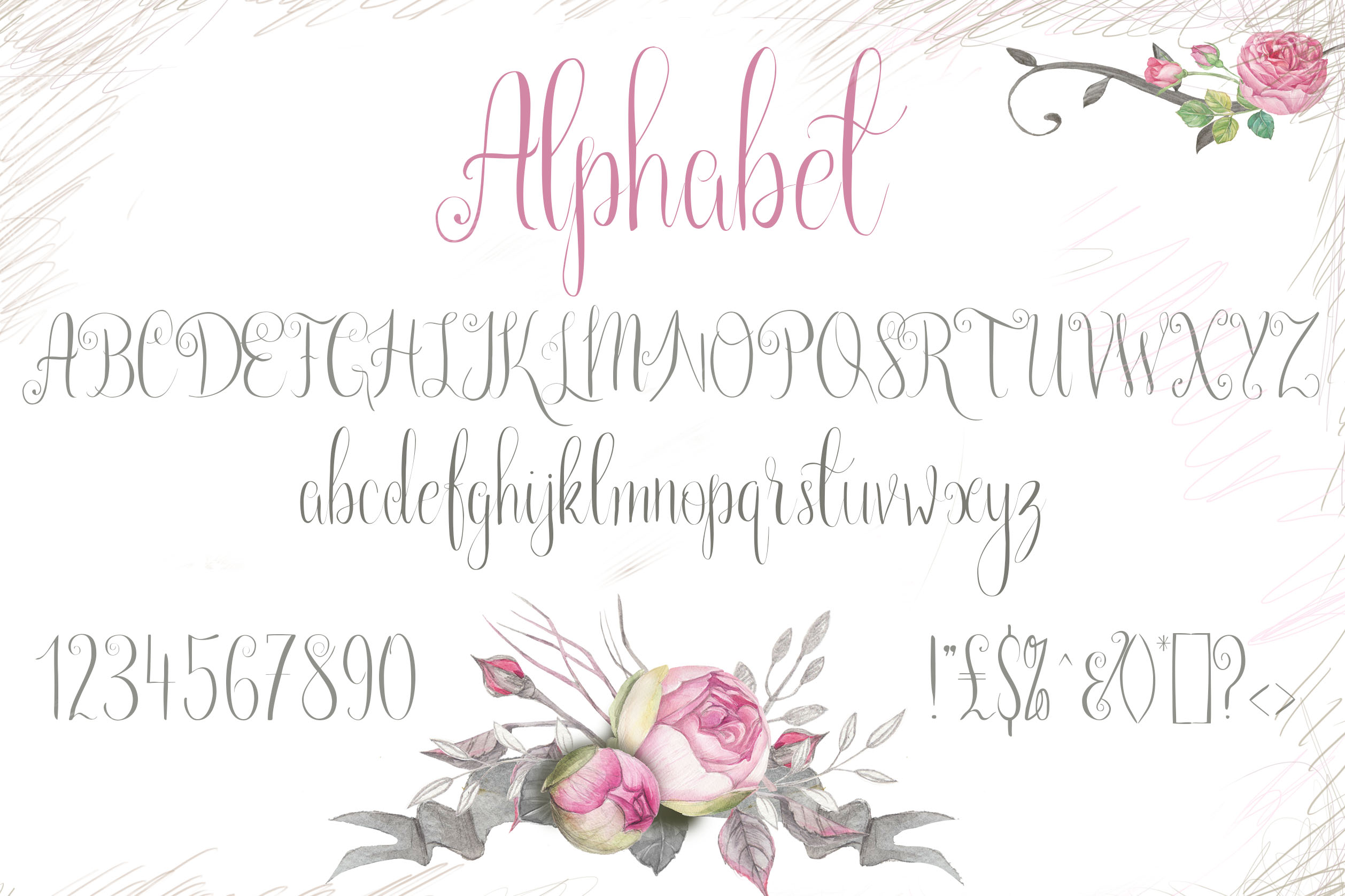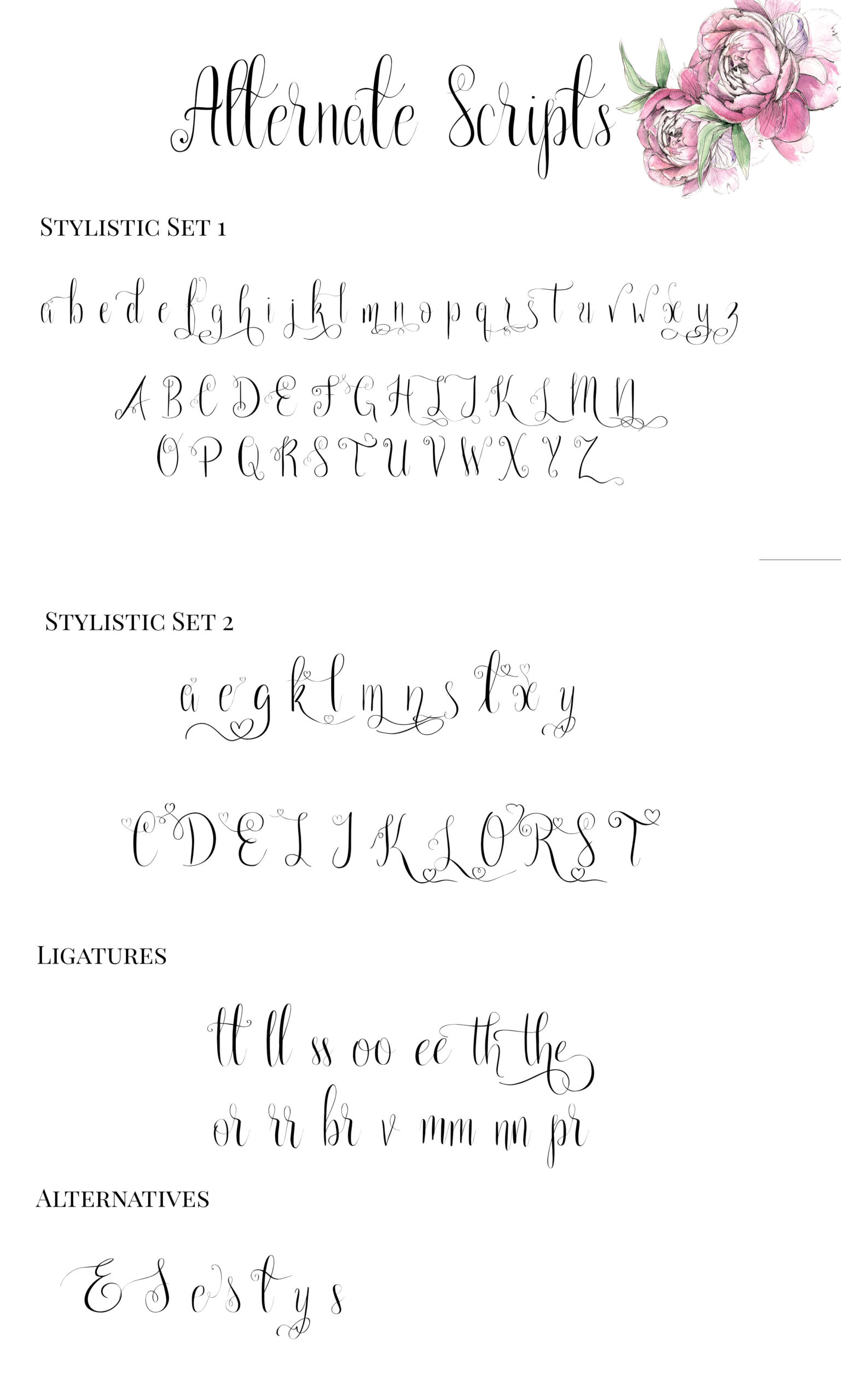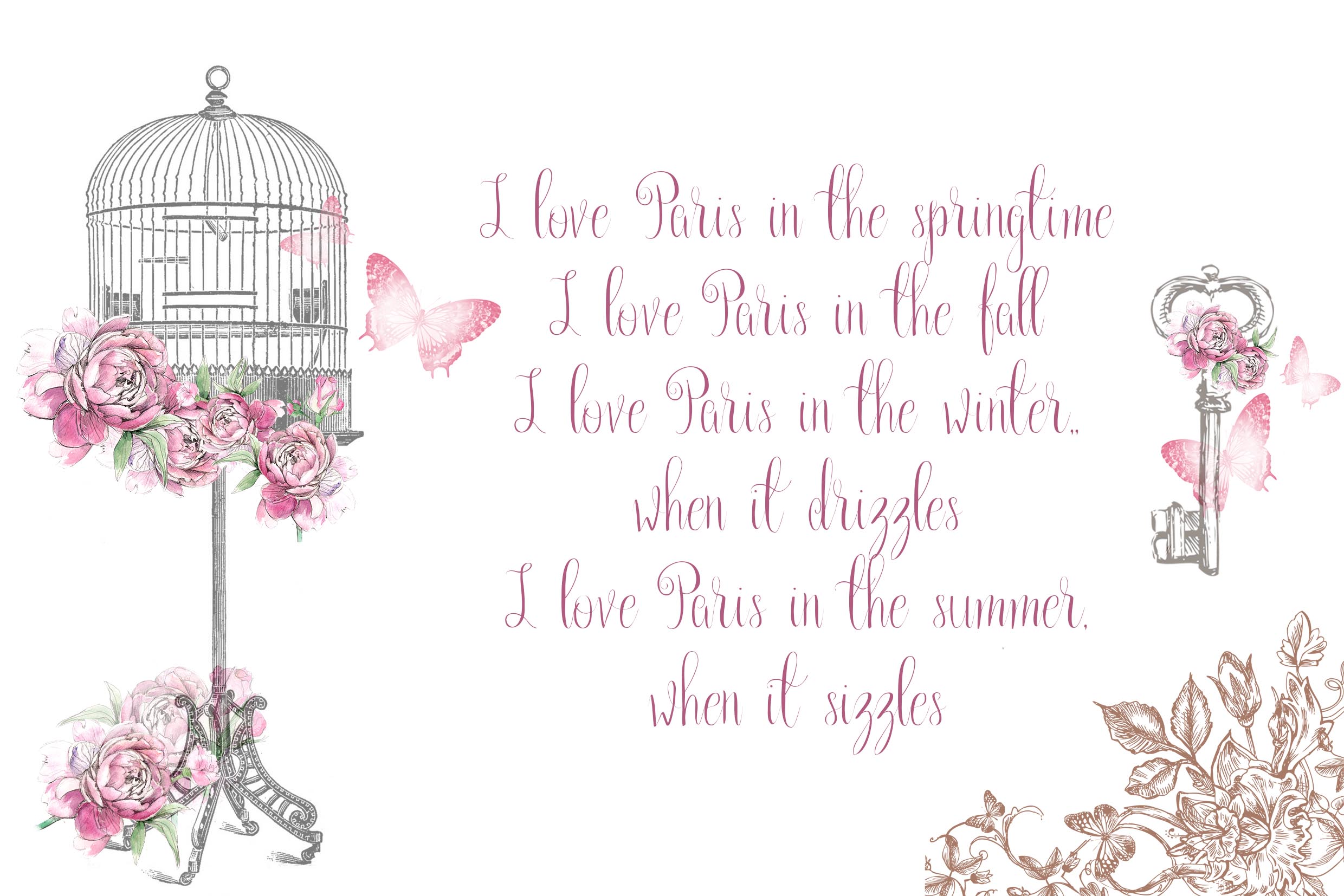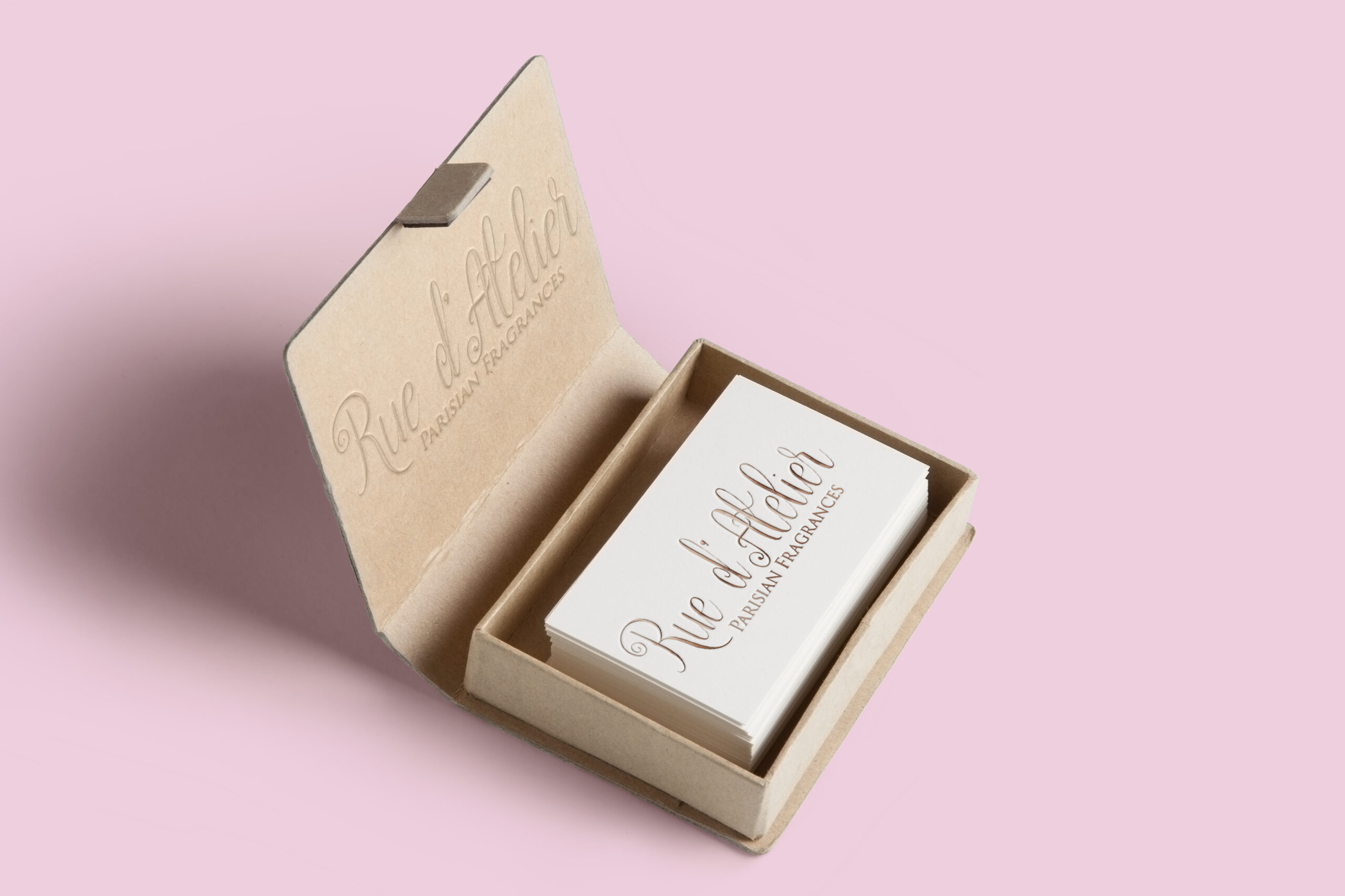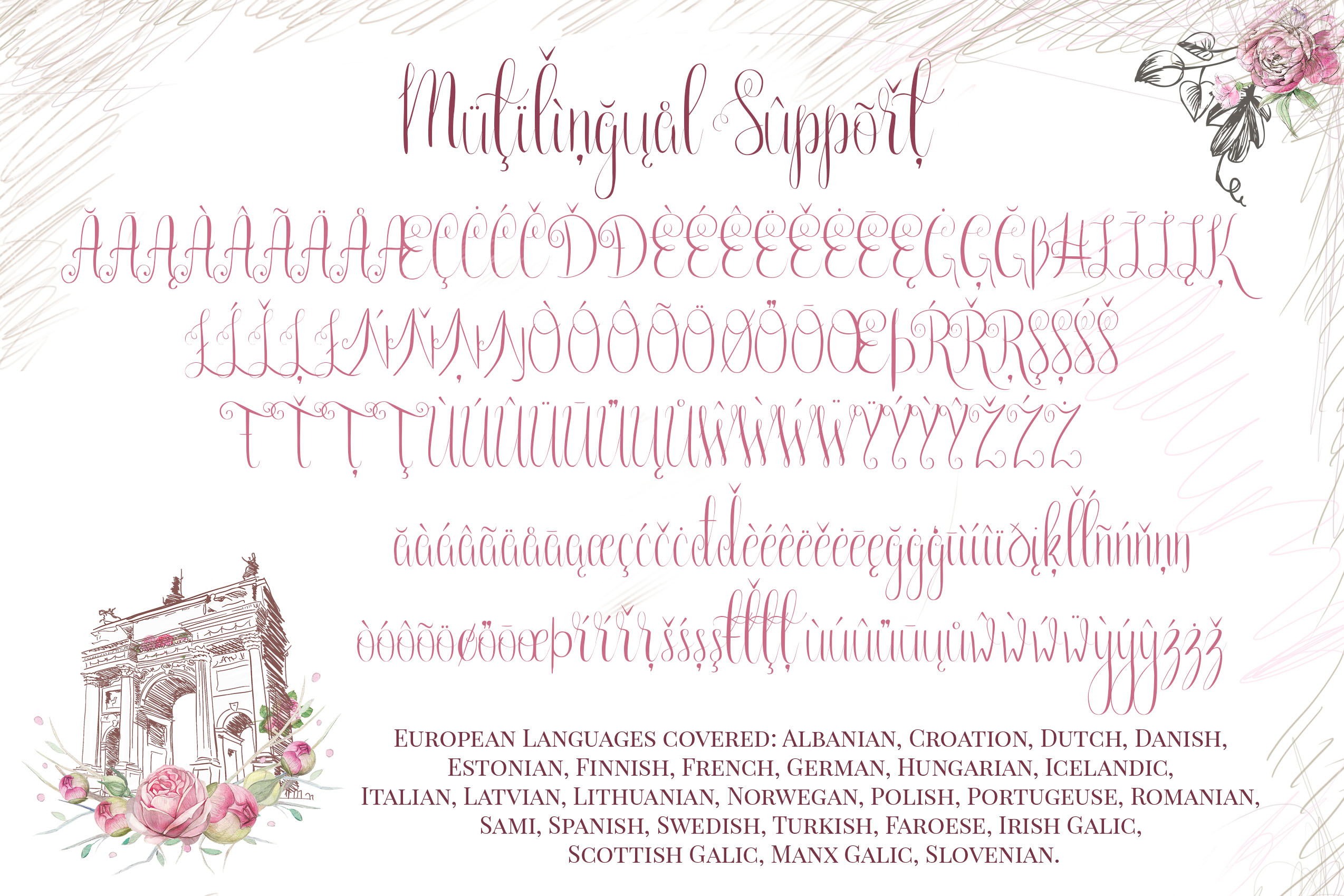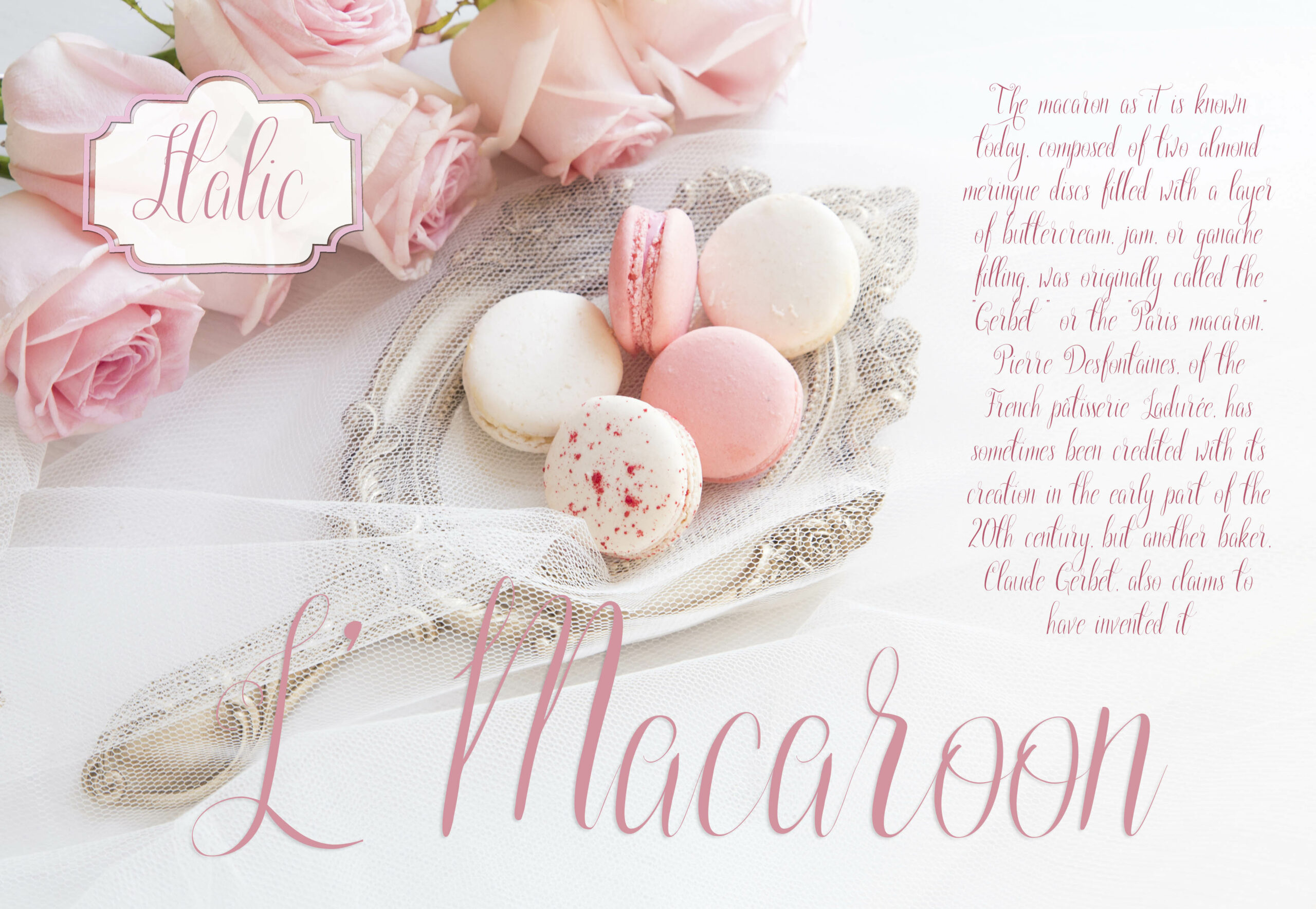
Paris in the Spring Font
About Paris in the Spring Font
“Paris in the Spring is inspired by the City of Lights and all the roses, tulips and cherry blossom that flower in my memory of Paris. This font is delicate, chic and elegant.” This font comes with tons of alternates for unique and beautiful typographic designs.